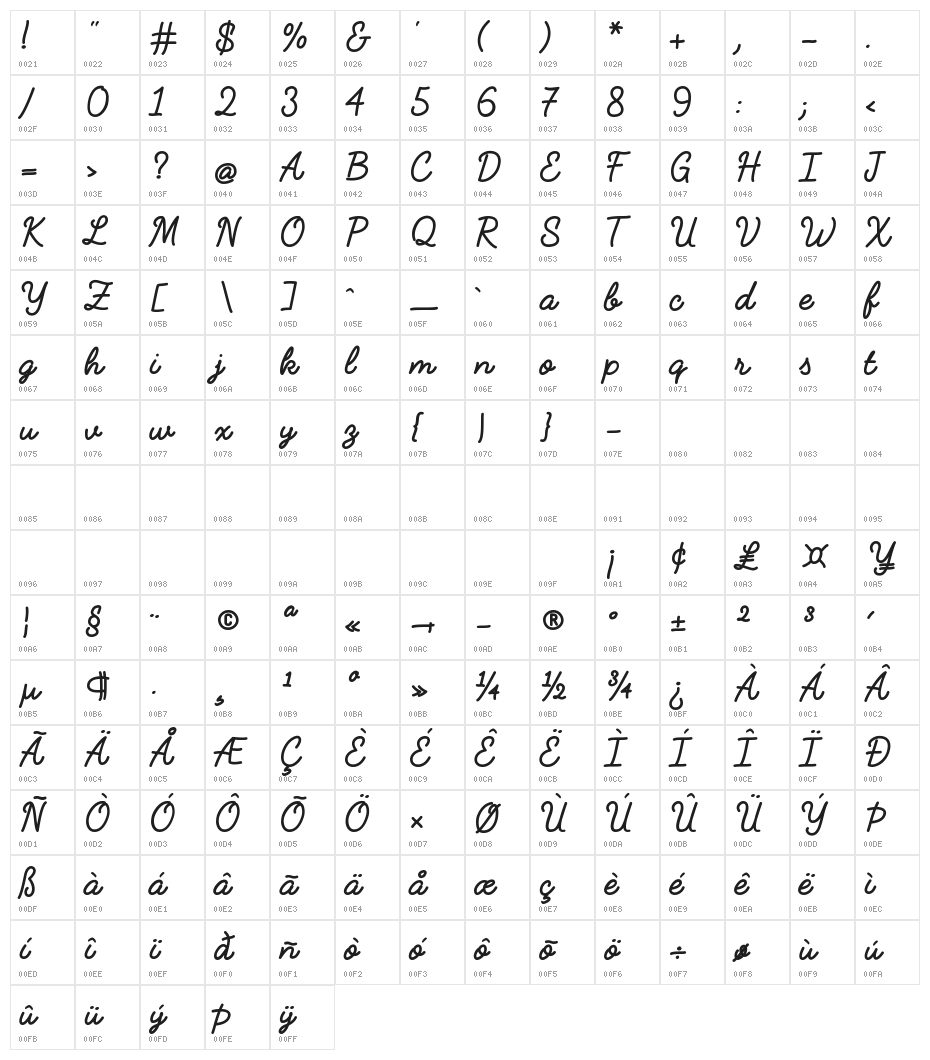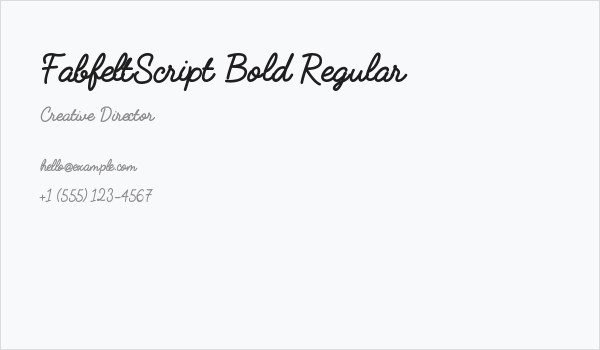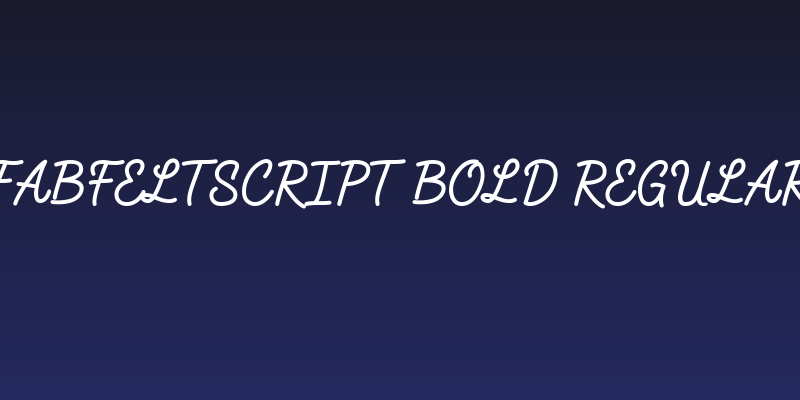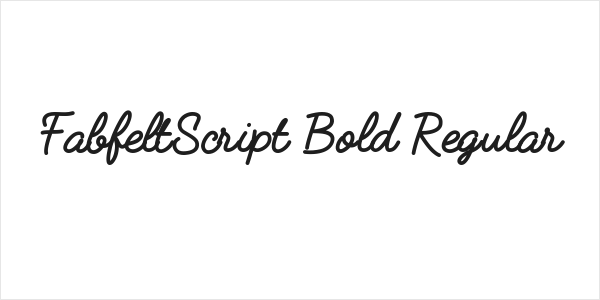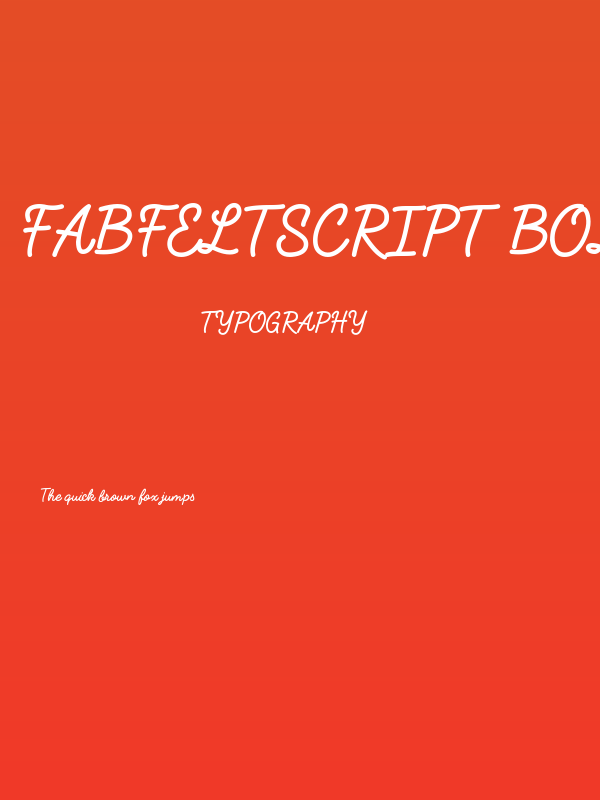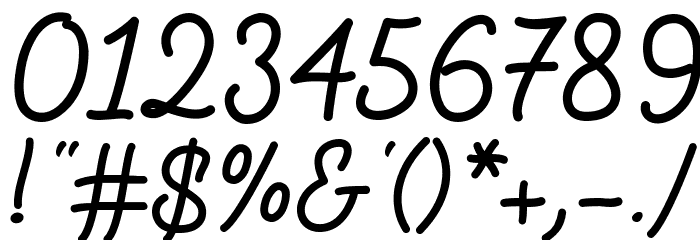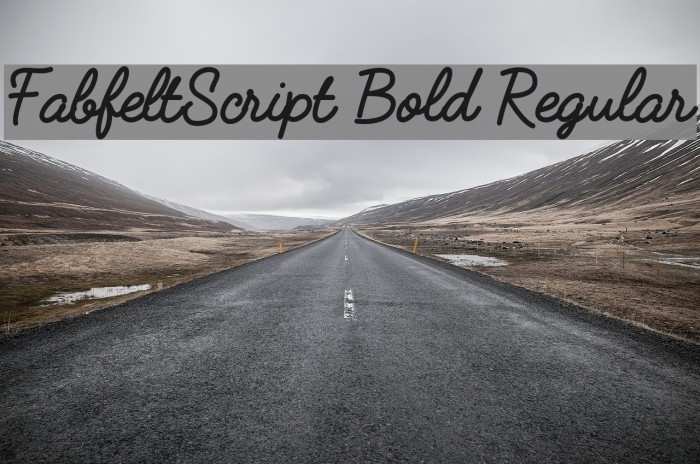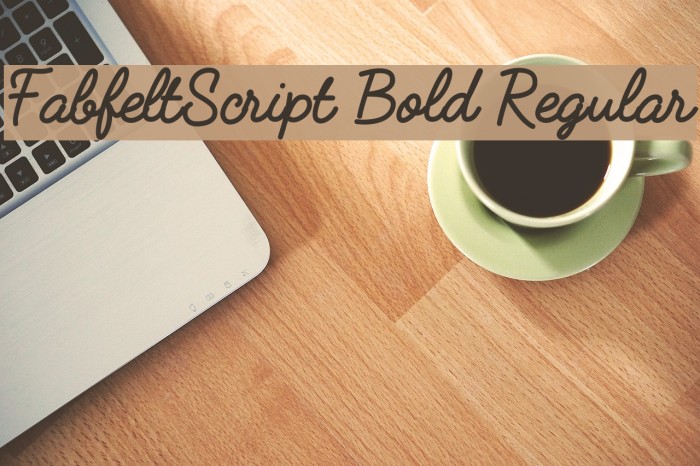
FabfeltScript Bold Regular Font
FabfeltScript Bold Regular Description
This is a bold and flowing script font that exudes elegance and a sense of fluidity. The characters are connected, creating a seamless and continuous look that is both stylish and sophisticated. The uppercase letters are slightly larger and more pronounced, while the lowercase letters maintain a consistent flow. The numbers and special characters are designed to match the overall script style, ensuring a cohesive appearance across all elements. This font is perfect for projects that require a personal touch or a handwritten feel, such as invitations, greeting cards, or branding materials.
| Overall Style | Elegant, Handwritten |
| Use Case | Logos, Invitations, Greeting Cards |
| Proposed Projects | Ideal for invitations, greeting cards, branding, and any project requiring a personal, handwritten touch. |